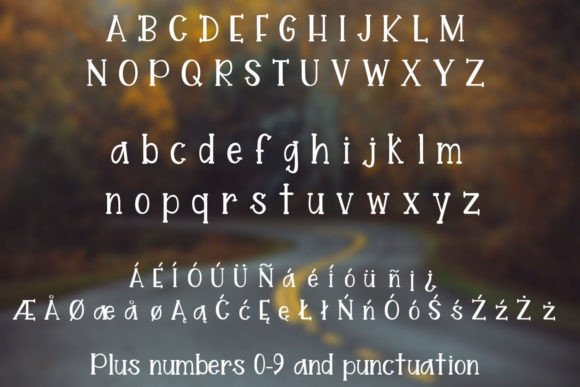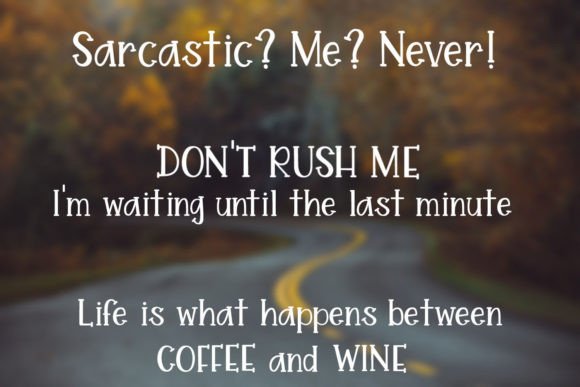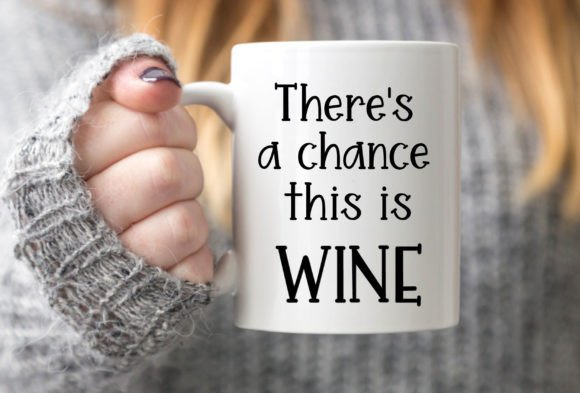
Introduction to Georgia Bound Font
Georgia Bound was created during a road trip from South Florida to and from Georgia.
Its adventurous and indie nature makes it suitable a wide range of original designs .
Key Features of Georgia Bound Font